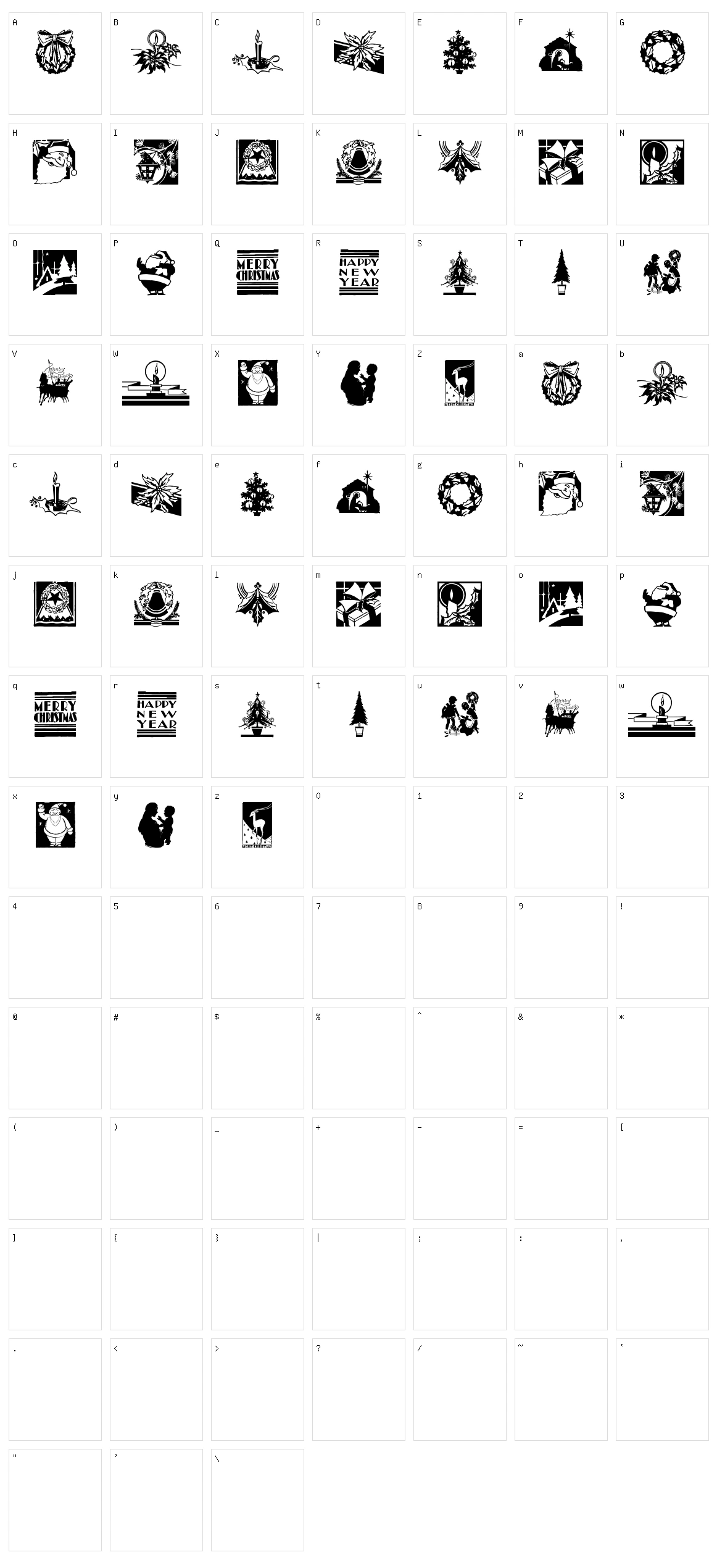
An unusual collection of fonts with an unusual story...
The name Cobb Shinn goes back to the turn of the
century. There are many sites on the net for post card
collectors which feature some of his illustrations on
humorous cards of the 1900's-1920's.
By the early 1950's, the Cobb Shinn Company of
Indianapolis, Indiana offered for sale to printers and
advertisers stock cuts and electrotypes of both
illustrations and photographs. For a nominal fee, you
were supplied with the cut and therefor the license to
use it in all forms of print media. This was the
predecessor to today's modern clip art CD-Rom libraries.
I came into possession of a sales catalog from circa
1950-51, with many images printed on glossy paper. There
was no copyright notice on any of the pages, just a
disclaimer advising that unauthorized use was
prohibited.
Having recognized many of the images as those found in
a Dover Clip Art Book, as well as a Formatt Clip Art
Book, I contacted both of the publishers about copyright
information on the artwork.
To the best of their knowledge, they alleged the art
was now in the public domain. Obviously, Cobb Shinn has
been out of business for quite some time. In fact, years
ago, I had purchased a small clip art collection (from
an older woman running a small company her late husband
started) which also had some of the Cobb Shinn art.
A web search yielded no current results showing any
successor to the original company, and I have not been
able to verify any current assignment of rights to the
artwork.